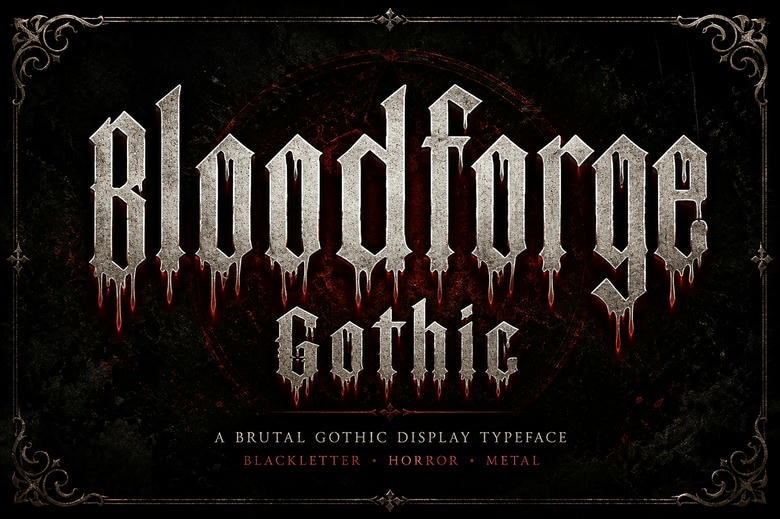
Bloodforge Gothic Font
Bloodforge Gothic is a bold gothic display font. It mixes sharp, classic blackletter shapes with dripping blood effects and rough stone textures. This font captures the dark mood found in fantasy, horror, and heavy metal themes.
Bloodforge Gothic works well for Halloween posters, horror book covers, metal band logos, gothic clothing, dark fantasy games, and occult branding. Its bold style stands out and draws attention.
Bloodforge Gothic Blackletter Font